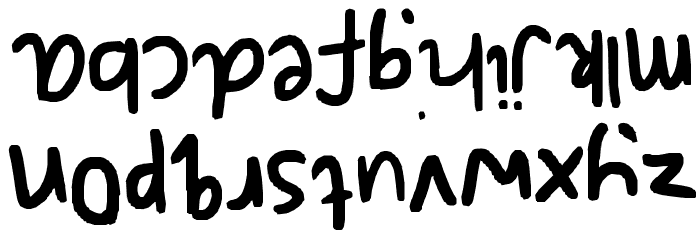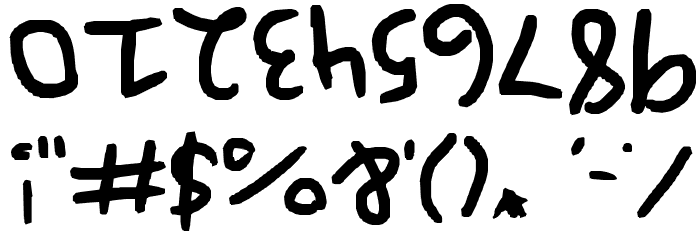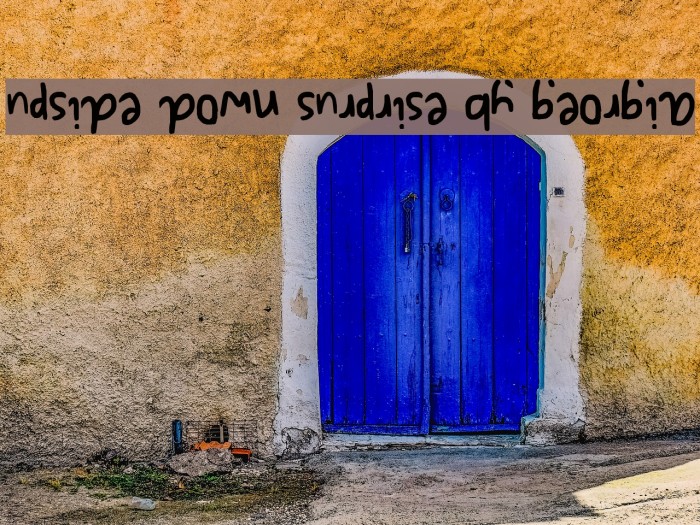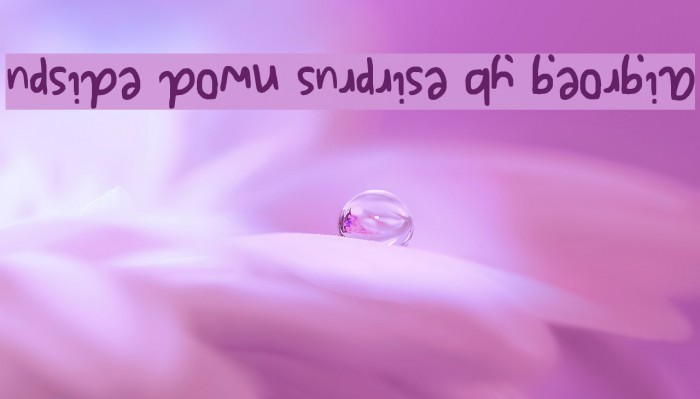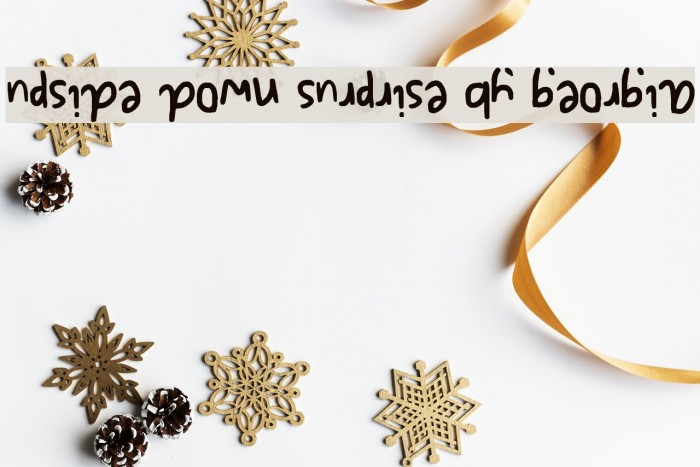
upside down surprise by georgia Font
This font exhibits a playful and casual handwritten style, characterized by its irregular and organic letterforms. The strokes are uneven, giving it a lively and spontaneous appearance. The letters are slightly tilted and vary in size, adding to the informal and whimsical feel. The font maintains a consistent thickness throughout, with rounded edges that soften the overall look. It captures a sense of movement and energy, making it ideal for projects that require a personal touch or a sense of fun.
A playful, casual handwritten font with irregular, organic letterforms.
- Proposed Projects: Ideal for greeting cards, children's books, casual invitations, and playful branding.
- Overall Style: Casual, Playful
- Use Case: Headlines, Informal text, Creative projects